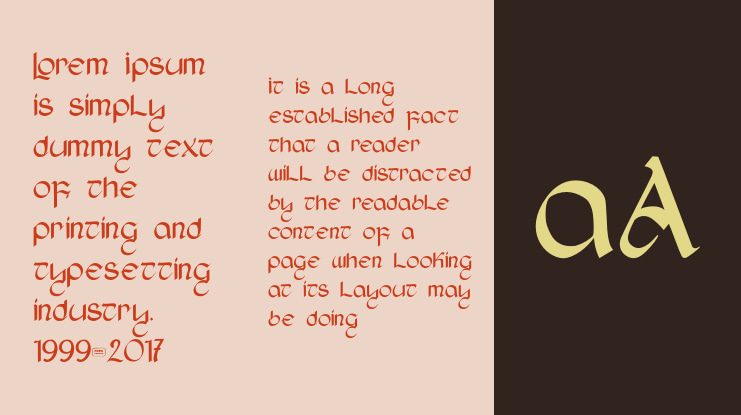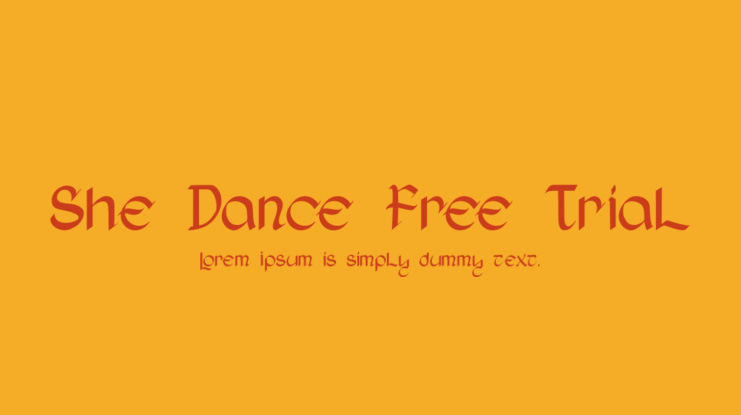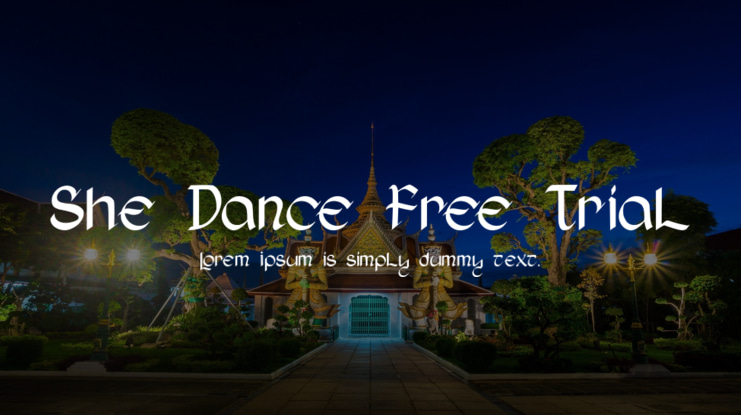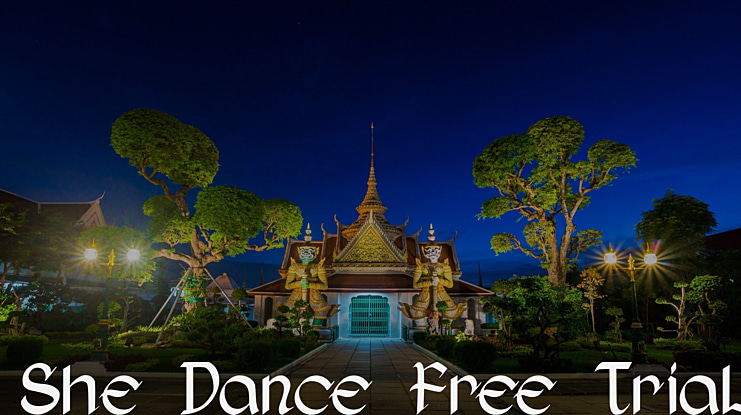
She Dance Free Trial Font
She Dance is a celtic style display font combined with a modern design, this font is modern, elegant and looks aesthetic.
This unique display typeface is inspired by celtic styles.
Use it for any design project that requires a personalized appearance!